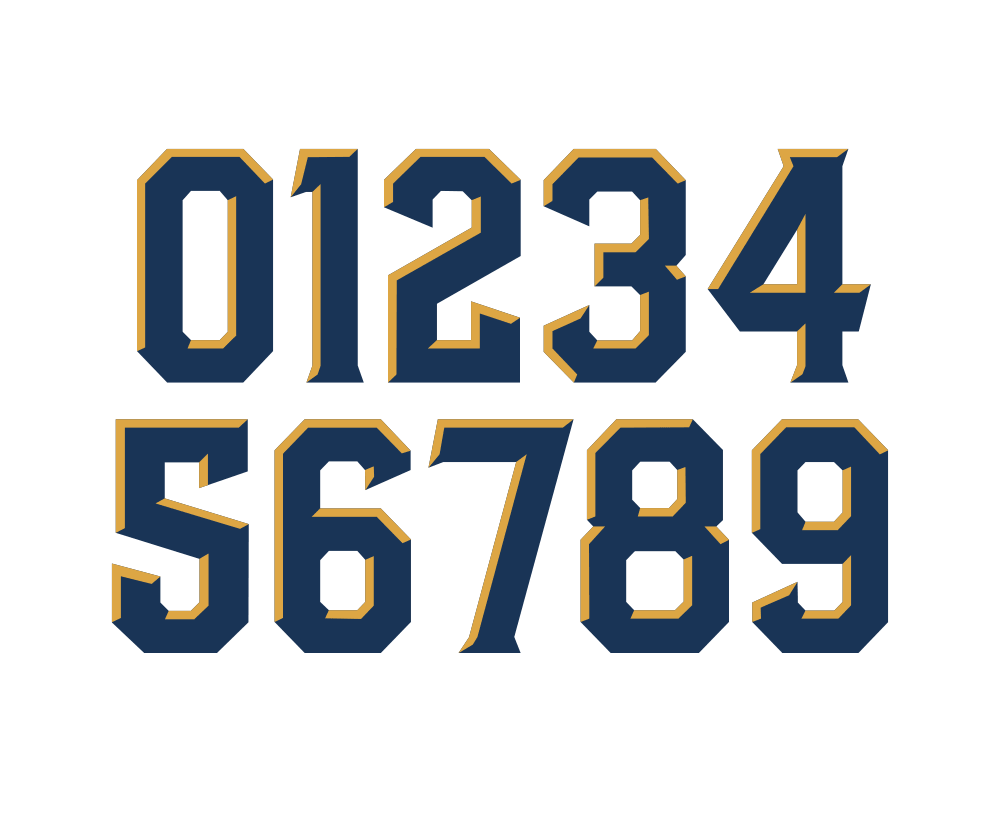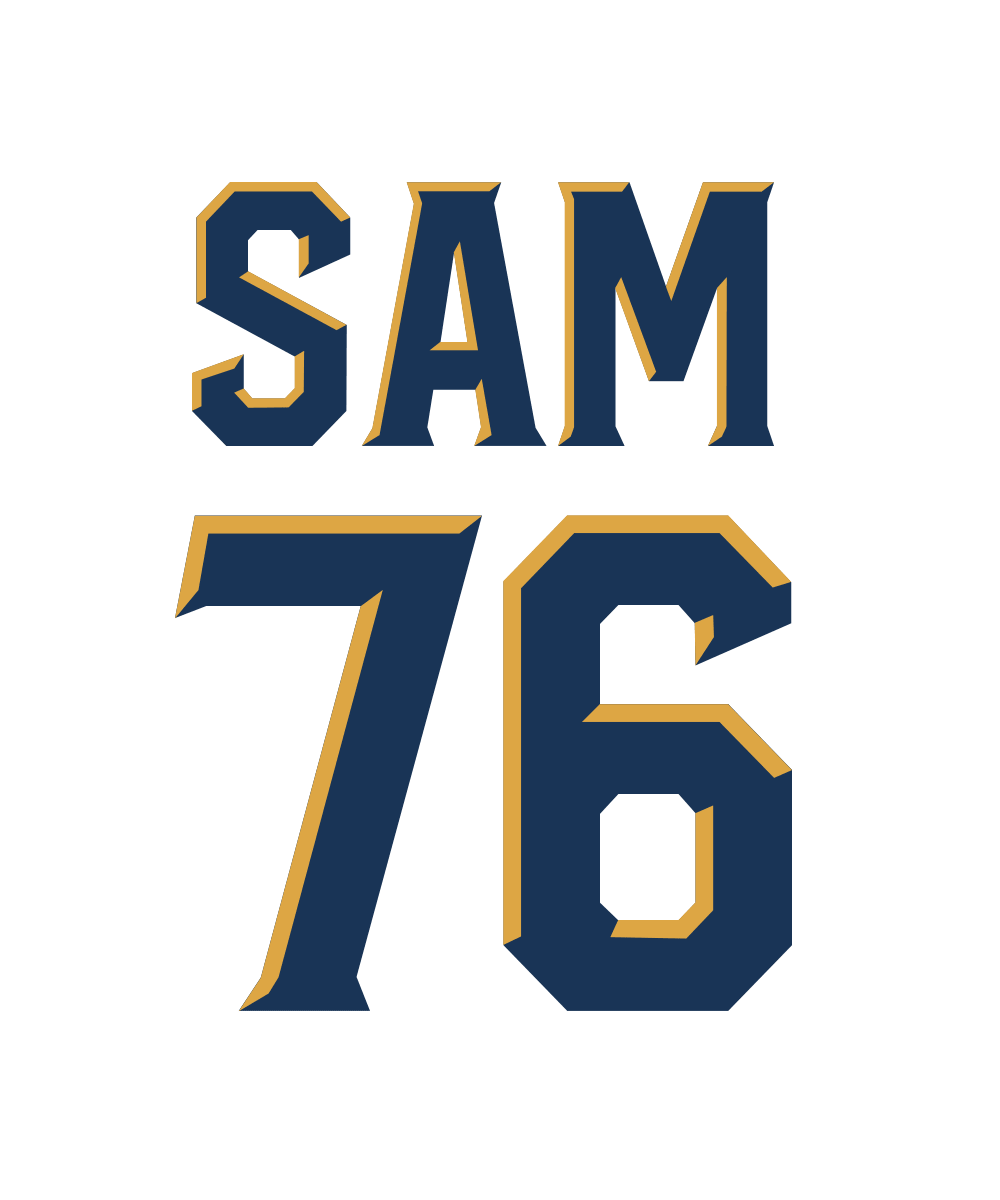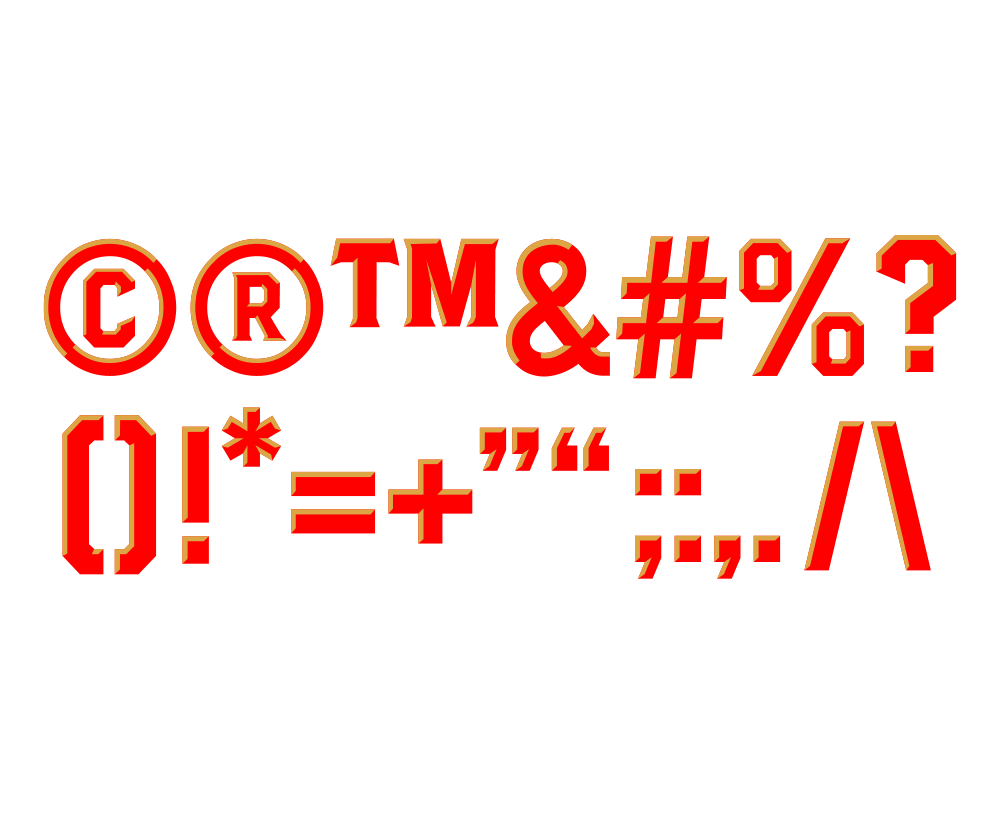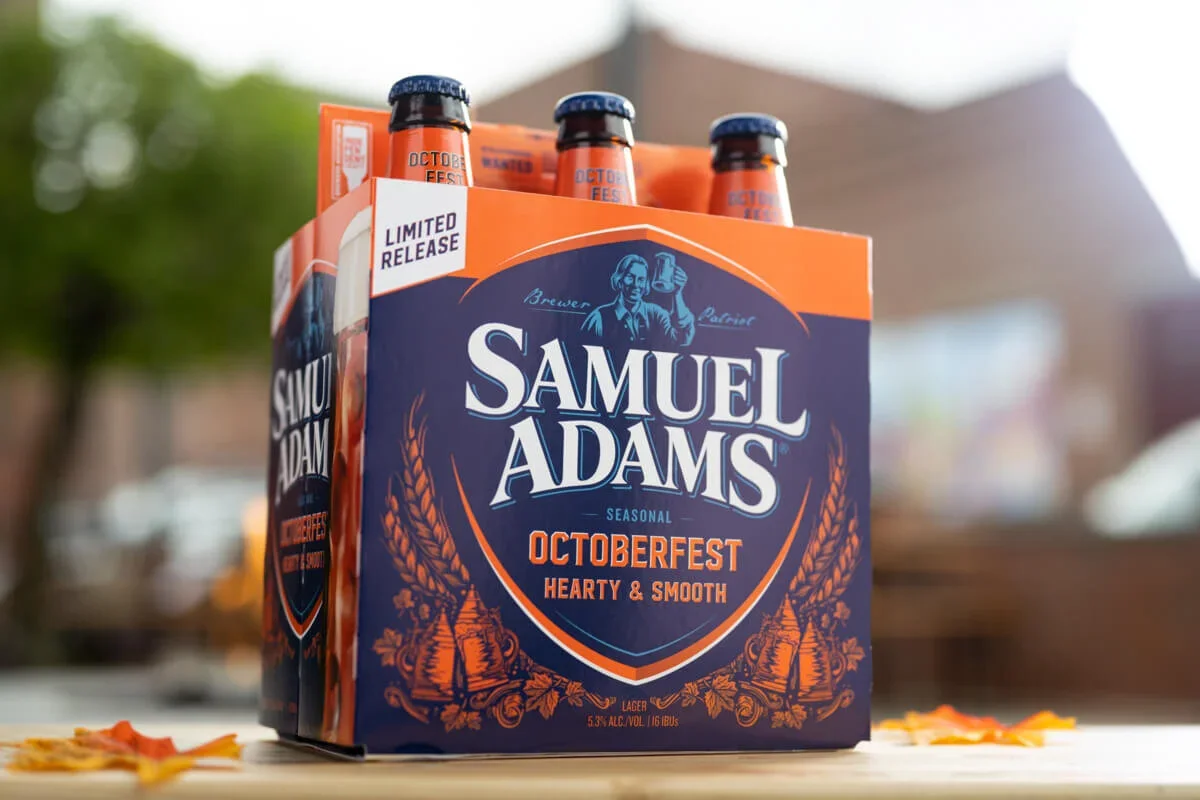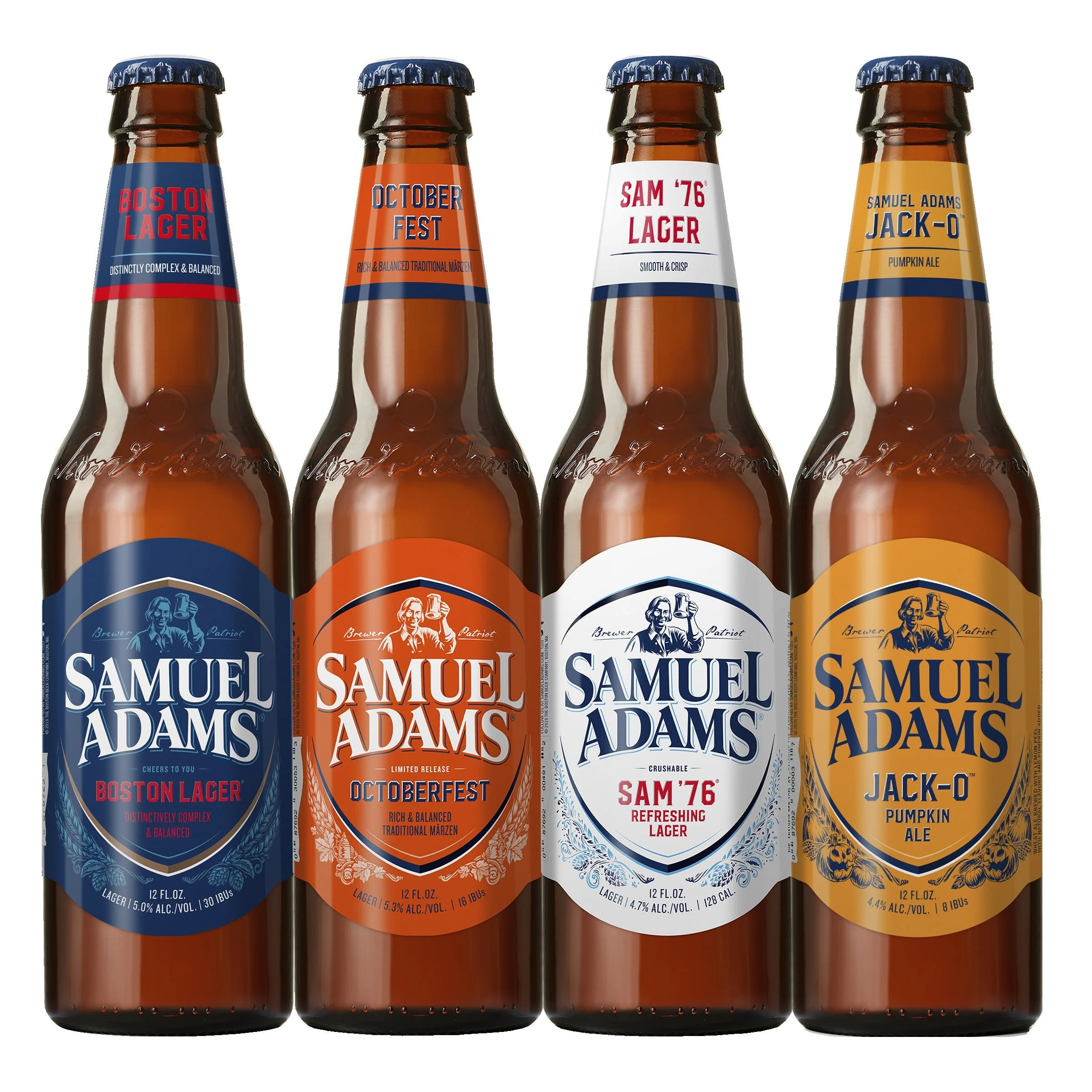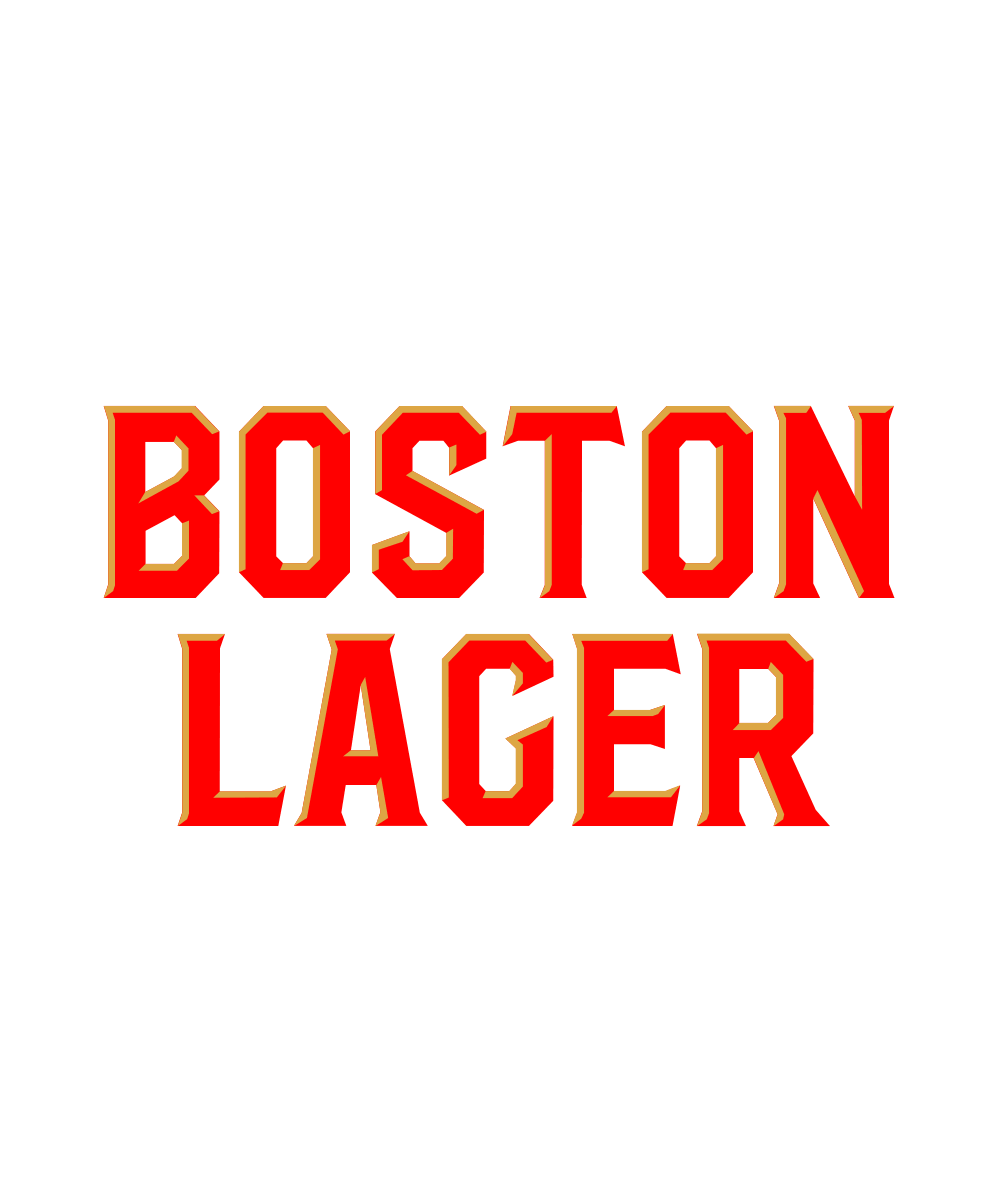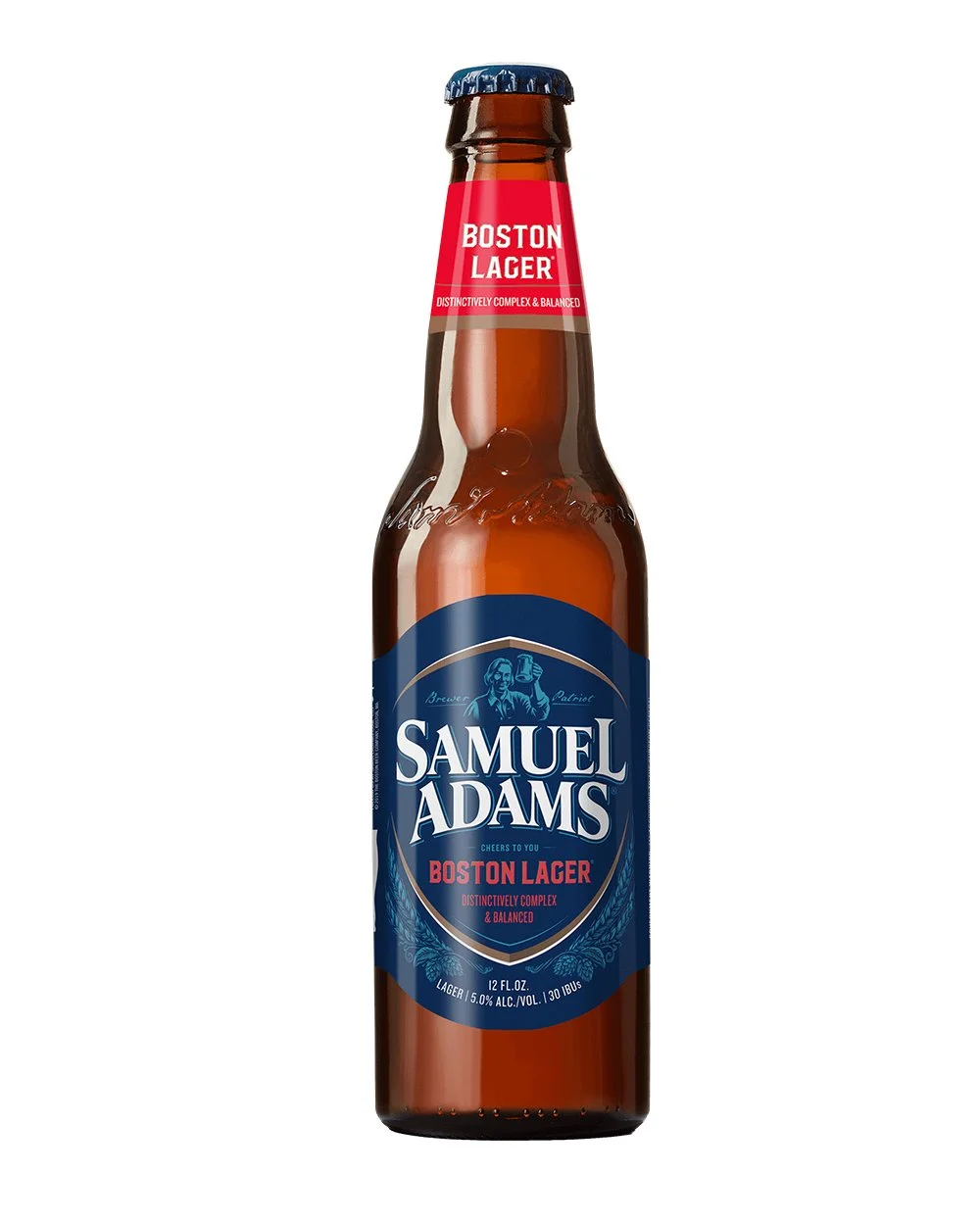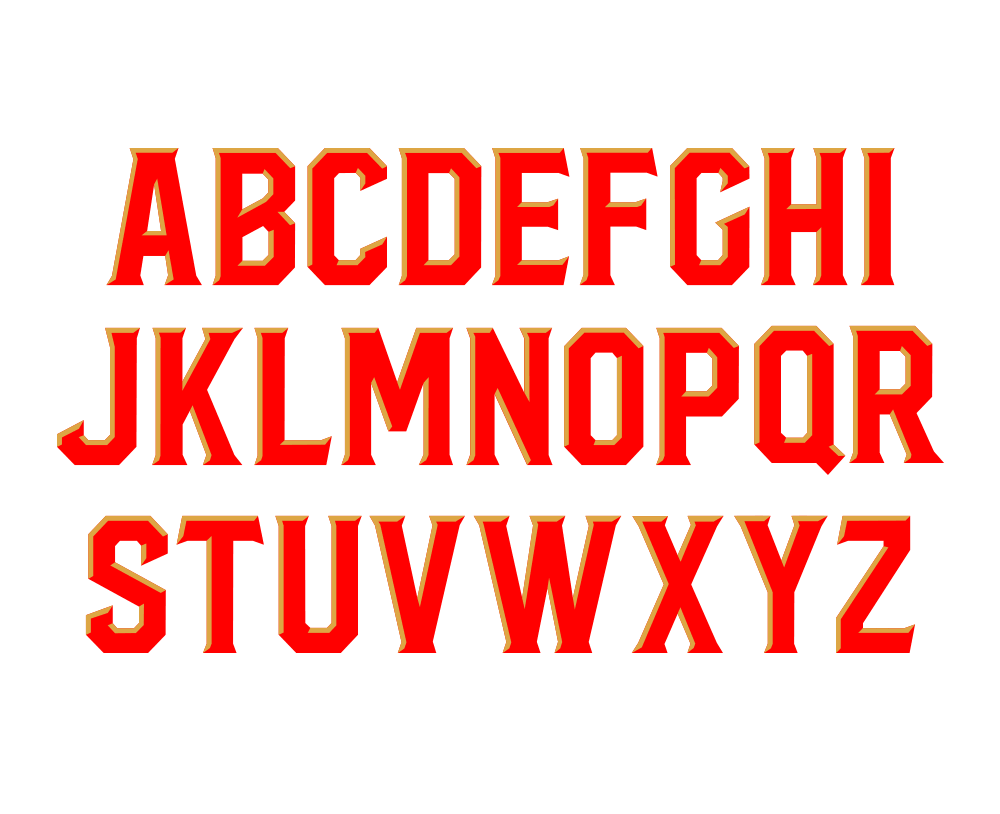
Custom font for Samuel Adams
We partnered with GBH London to design and develop a custom beveled font for Samuel Adams to use throughout the packaging. The font was a customised version of Hudson NY which was altered slightly and an addition bevel layer was added.